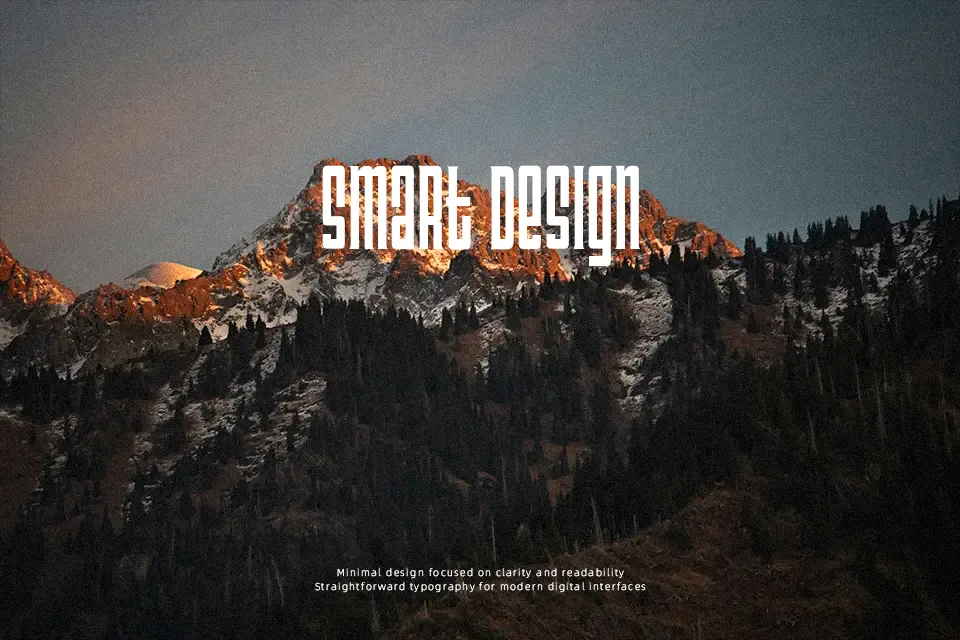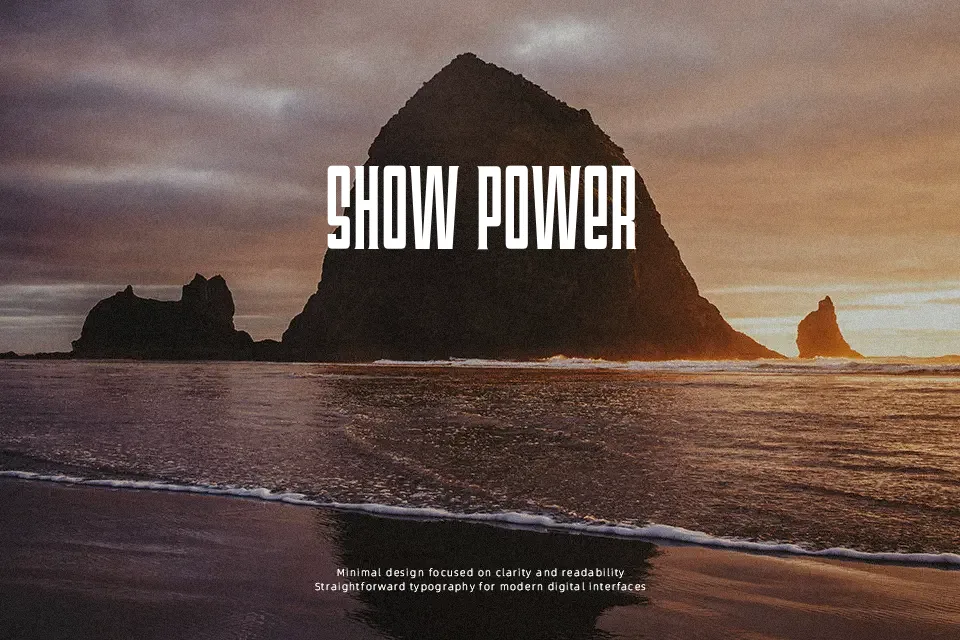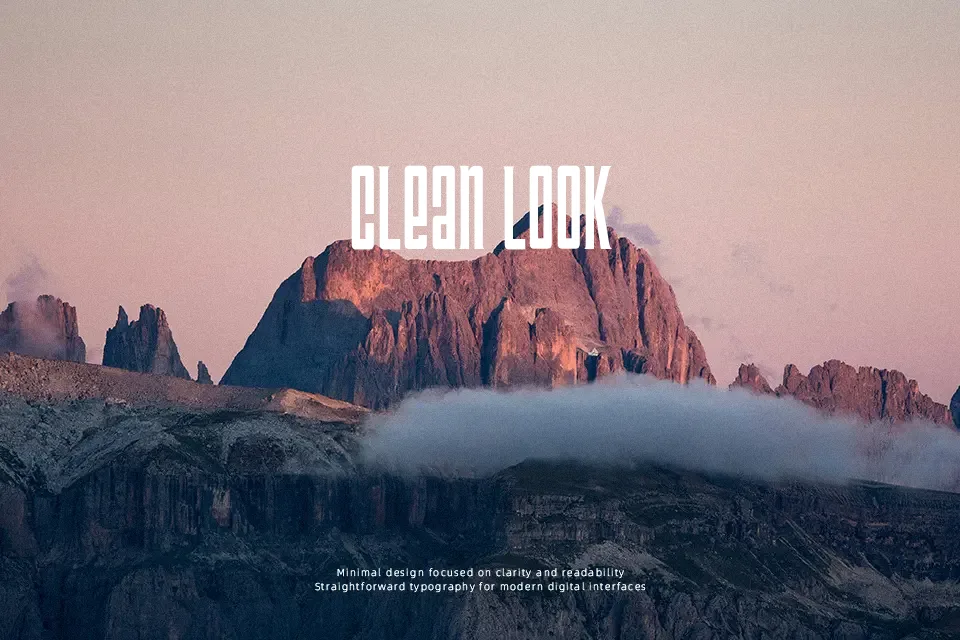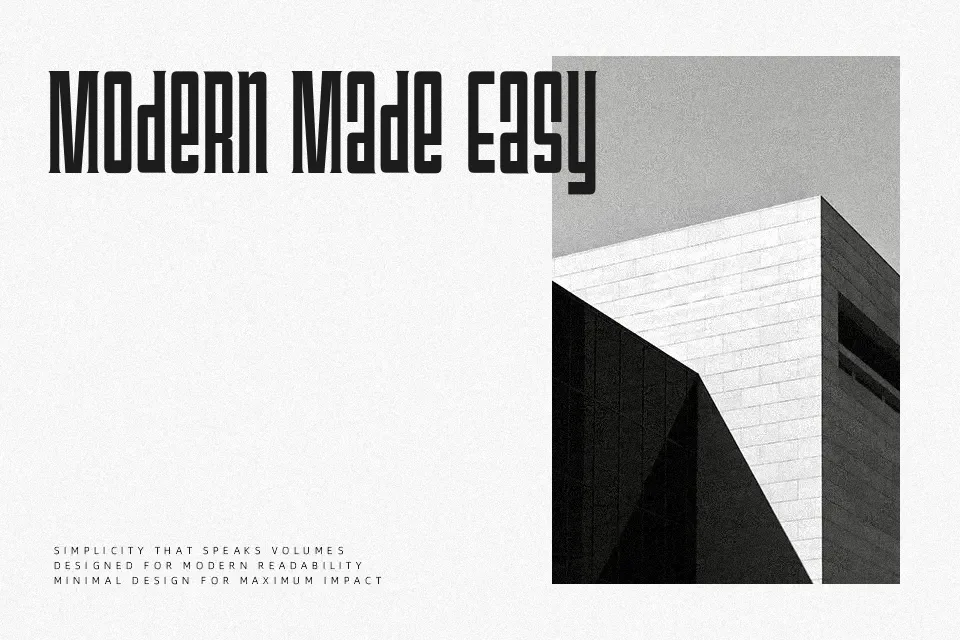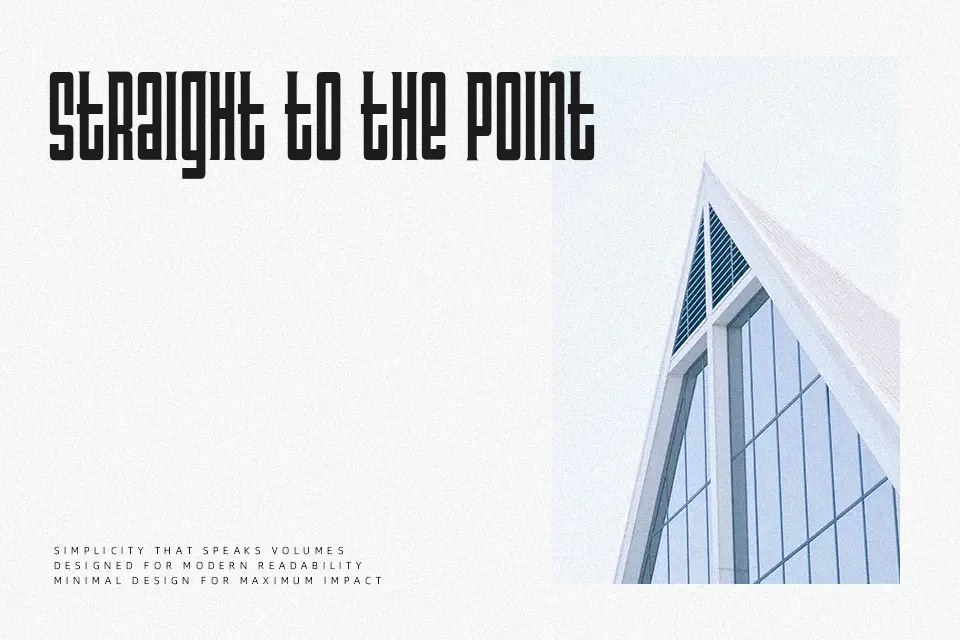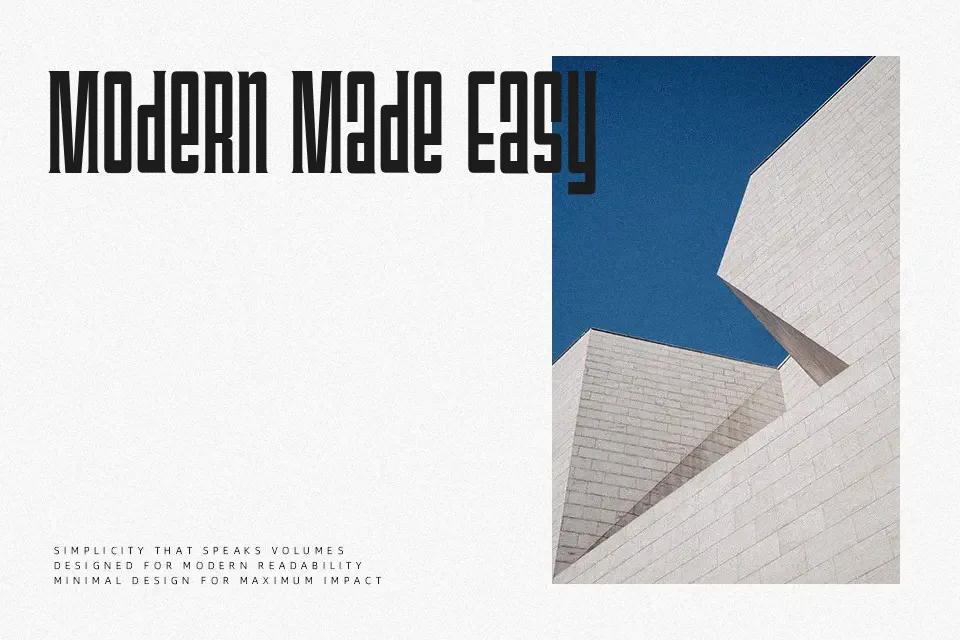
Triac 71 Font
Triac 71 Font presents a modular display architecture defined by uniform stroke thickness, softened rectangular contours, and distinctive geometric structures. The letterforms exhibit tall vertical proportions with consistent monoline weights, creating an engaging visual cadence across display layouts. Relatively tight horizontal spacing keeps characters neatly grouped, allowing large headlines, vinyl record artwork, and festival banners to project focused graphic presence. At substantial scales, the design retains clear distinction between individual glyphs. However, the unconventional letter construction and compact spacing impair reading comfort in extended body paragraphs. For concise titling where stylized mid-century rhythm is desired, the typeface offers dependable clarity and composed impact.
Best For: vinyl record sleeves, music festival posters, apparel graphics, editorial headlines
Not Ideal For: long body text, mobile user interfaces, spreadsheet tables, small legal disclaimers
Perfect for branding, headline, and music, with a creative and display style.